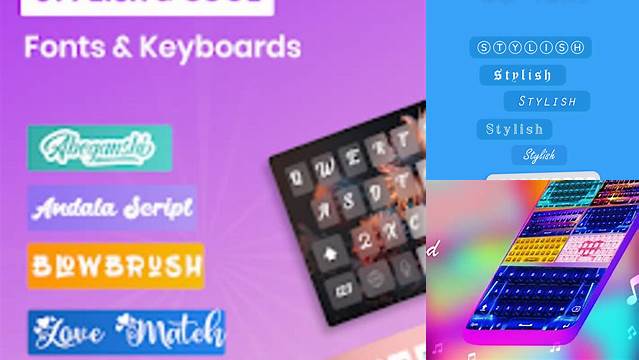
Hey guys! Ever feel like your texts and social media posts are missing that extra oomph? You know, that special something that makes your words pop? Well, you're in luck! We're diving deep into the world of cool fonts keyboard downloads, and trust me, it's a game-changer. Forget boring, default fonts – it's time to spice things up and let your personality shine through every message you send. This guide will walk you through everything you need to know about finding, downloading, and using these awesome keyboards. So, buckle up and get ready to transform your typing experience!
1. What is a Cool Fonts Keyboard?
Okay, so what exactly is a cool fonts keyboard, anyway? Simply put, it's a keyboard app that you can download onto your phone or tablet that offers a wide variety of stylish and unique fonts to use in your messages, social media posts, and more. Instead of being stuck with the standard system font, you can switch things up with cursive fonts, bold fonts, fancy fonts, and everything in between. Imagine the possibilities! Think about how much more engaging your Instagram captions will be, or how much more fun your texts will be. It's all about adding that personal touch and expressing yourself in a creative way. Cool fonts keyboards are all about giving you the freedom to personalize your digital communication. They let you break free from the ordinary and inject some fun and flair into your everyday typing.
Finding the Right Cool Fonts Keyboard
Benefits of Using a Cool Fonts Keyboard
Okay, so you might be thinking, "Why should I even bother with a cool fonts keyboard?" Well, let's talk about the benefits! First and foremost, it's all about personalization. Using a cool fonts keyboard allows you to express your unique style and personality in your digital communication. You're not just sending a message; you're sending a message with flair. This can be especially useful for social media, where standing out from the crowd is key. A cool font can make your posts more eye-catching and engaging, helping you to grab attention and make a lasting impression. Another benefit is improved readability. Some fonts are simply easier to read than others, and a cool fonts keyboard can offer options that are specifically designed for readability. This can be particularly helpful for people with visual impairments or those who simply prefer a clearer font. Finally, using a cool fonts keyboard can just be plain fun! It's a way to add a little bit of creativity and excitement to your everyday interactions. Who knows, you might even inspire your friends to download one too!
3. How to Download and Install a Cool Fonts Keyboard
Alright, so you've decided to take the plunge and download a cool fonts keyboard – awesome! The good news is that the process is usually pretty straightforward, whether you're on an Android or iOS device. First, head over to your app store (Google Play Store for Android, App Store for iOS) and search for the keyboard app you want to download. Once you've found it, tap the "Install" button (on Android) or the "Get" button (on iOS), and the app will start downloading. After the download is complete, you'll need to enable the keyboard in your device's settings. This usually involves going to your keyboard settings and toggling on the new keyboard. The exact steps might vary slightly depending on your device and operating system, but the app should provide clear instructions on how to do this. Once the keyboard is enabled, you can select it as your default keyboard and start using it in any app that allows text input. It's that easy! Now you're ready to start typing in style with your new cool fonts keyboard.
Step-by-Step Guide for Android
For all you Android users out there, here's a step-by-step guide to downloading and installing a cool fonts keyboard: 1. Open the Google Play Store app on your device. 2. Search for "cool fonts keyboard" or a specific keyboard app that you're interested in. 3. Tap on the app from the search results. 4. Tap the "Install" button. 5. Wait for the app to download and install. 6. Open your device's settings app. 7. Search for "keyboard" or "language and input." 8. Tap on "Virtual keyboard" or a similar option. 9. Tap on "Manage keyboards." 10. Toggle on the switch next to the keyboard app you just installed. 11. A warning message might appear; read it carefully and tap "OK" if you agree to the permissions. 12. Open any app where you can type text, such as a messaging app or social media app. 13. Tap in the text input field to bring up the keyboard. 14. Look for a keyboard icon in the bottom right corner of the screen or a globe icon on the keyboard itself. 15. Tap the icon to switch between keyboards. 16. Select the cool fonts keyboard you just installed. 17. Start typing in style! And that's it – you're ready to rock your new fonts on your Android device.
Installation Guide for iOS (iPhone/iPad)
Hey iPhone and iPad users, don't worry, we haven't forgotten about you! Here's a simple installation guide for getting a cool fonts keyboard up and running on your iOS device: 1. Open the App Store app on your iPhone or iPad. 2. Search for "cool fonts keyboard" or the name of the specific app you want to try. 3. Tap the "Get" button next to the app. 4. You might be prompted to enter your Apple ID password or use Touch ID/Face ID to confirm the download. 5. Wait for the app to download and install. 6. Open the Settings app on your device. 7. Scroll down and tap on "General." 8. Tap on "Keyboard." 9. Tap on "Keyboards" again. 10. Tap on "Add New Keyboard..." 11. Scroll through the list of third-party keyboards and tap on the keyboard app you just installed. 12. Tap on the keyboard in the list to access its settings. 13. Toggle on the switch for "Allow Full Access." 14. A warning message will appear; read it carefully and tap "Allow" if you're comfortable with the permissions. 15. Open any app where you can type text. 16. Tap and hold the globe icon in the bottom left corner of the keyboard. 17. A list of available keyboards will appear; select the cool fonts keyboard you just installed. 18. Start typing and enjoy your new fonts! With these steps, you'll be typing in style on your iOS device in no time.
Potential Developments in Font Technology
The future of font technology is ripe with possibilities, and these developments could have a significant impact on cool fonts keyboards. One exciting area is variable fonts. Variable fonts allow for a single font file to contain multiple variations, such as different weights, widths, and styles. This makes fonts more flexible and efficient, and it could lead to more dynamic and customizable fonts in keyboard apps. Another potential development is the use of AI to generate fonts. AI could be used to create entirely new fonts based on specific design parameters or even to personalize existing fonts based on a user's preferences. We might also see more integration of 3D fonts and typography into digital interfaces, adding a new dimension to text design. Font technology is constantly evolving, and these developments could lead to even more creative and expressive options for cool fonts keyboard users in the future.